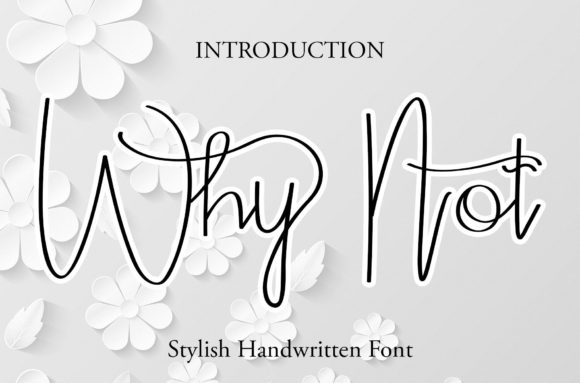
Dive into the world of enthralling calligraphy with Why Not Font, a script font family that will ignite your creativity and leave you spellbound. Designed by the talented Sansana, this font is a testament to the boundless beauty of handwritten art. Its slender strokes and graceful curves evoke a sense of elegance and sophistication, making it an ideal choice for a multitude of design projects.
With Why Not Font, you'll embark on a journey of self-expression like never before. Its captivating charm will bring forth the playful and romantic essence within you, adding a touch of magic to your creations. Whether you're a seasoned graphic designer or simply someone who cherishes the art of beautiful typography, this font will unlock new horizons of creativity.
Picture your designs blooming into life as you adorn them with the enchanting letters of Why Not Font. Its smooth, flowing lines will add a touch of whimsical elegance to wedding invitations, logos, branding, social media graphics, and any project that calls for a dash of heartfelt charm. Let your imagination soar as you explore the endless possibilities that await you.
Join the ranks of discerning designers who have fallen under the spell of Why Not Font. Experience the joy of creating designs that resonate with your audience, leaving an indelible mark on their hearts. Embrace the power of beautiful typography and see your creative vision come to life.
So, dear adventurers of the digital realm, seize this opportunity to bring your creative dreams to fruition. Let Why Not Font be your guide as you embark on a journey of artistic exploration. Dive into the world of enchanting scripts and let your imagination run wild.